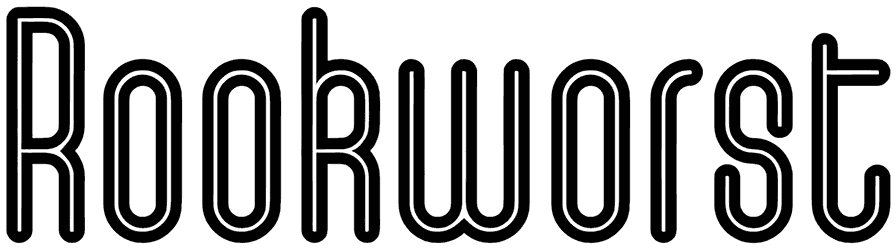
Rookworst Font
Rookworst is the result of adding accurate well-rounded curves to a classy sans serif font. This 80s neon font is really perfect for your graphic projects and allows you to create high-end headlines, web pages, magazines…
Rookworst is the result of adding accurate well-rounded curves to a classy sans serif font. This 80s neon font is really perfect for your graphic projects and allows you to create high-end headlines, web pages, magazines, invitations, and flyers. Since it has a jaunty style, sharing a sense of modernity, innovation, courage, and professionalism would be a piece of cake.
This one started when I was playing a city building game and started making letters using its road texture. It’s a bit sausagey as well 🙂